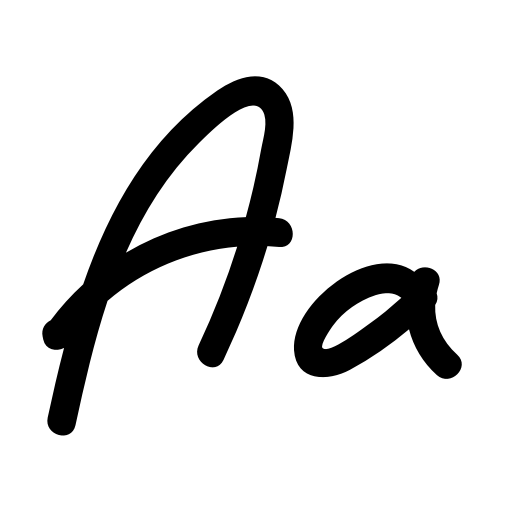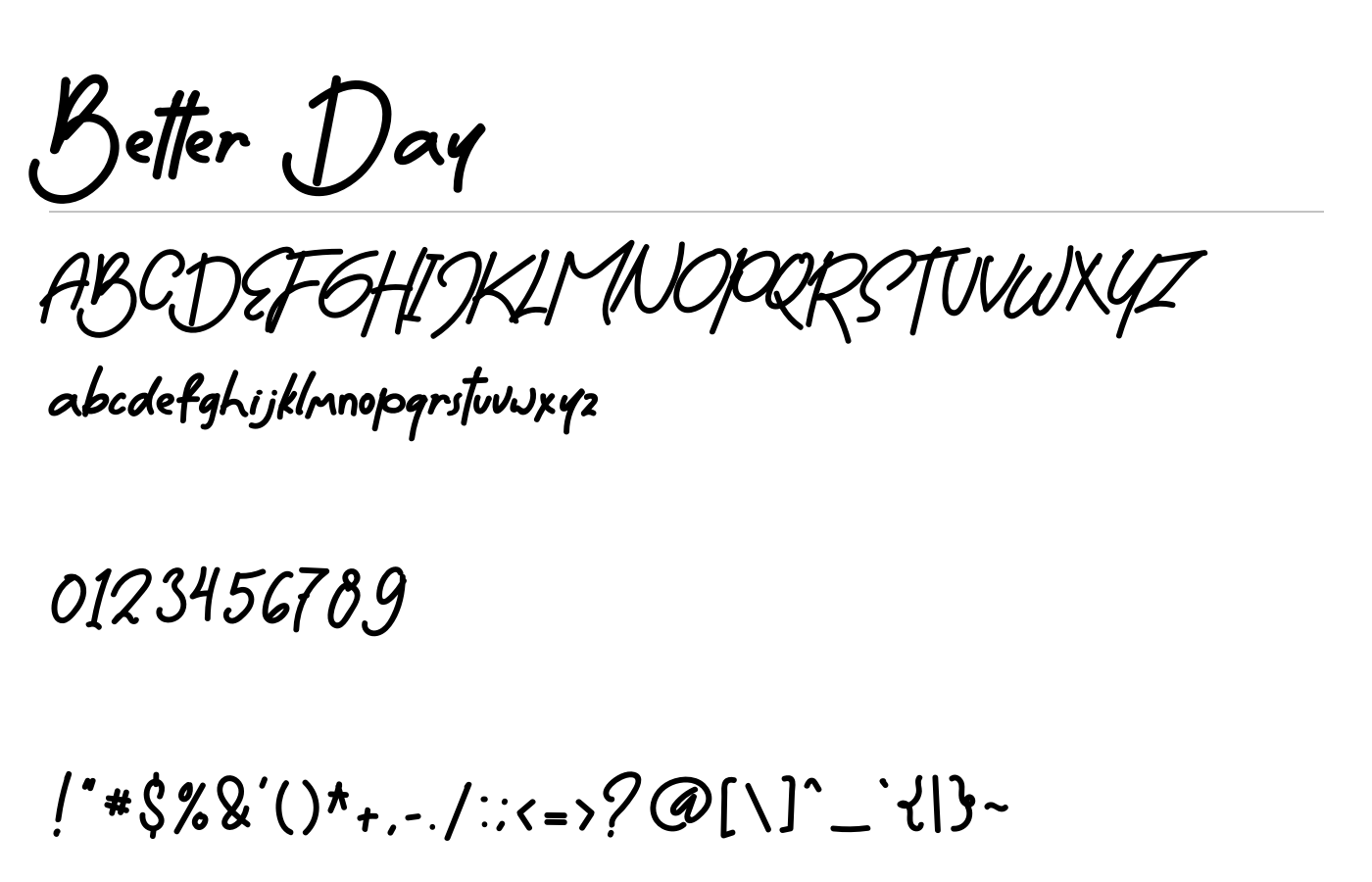
Better Day is a casual, handwritten script font with a lively and energetic feel. Its fluid strokes and playful letterforms give it a friendly and approachable personality, making it perfect for informal branding, creative projects, and personal communication. This font works beautifully in logos, invitations, social media graphics, and anywhere you want to add a warm, human touch.
Better Day Font
About Better Day Font
| Designer | Nur Edi Prayitno |